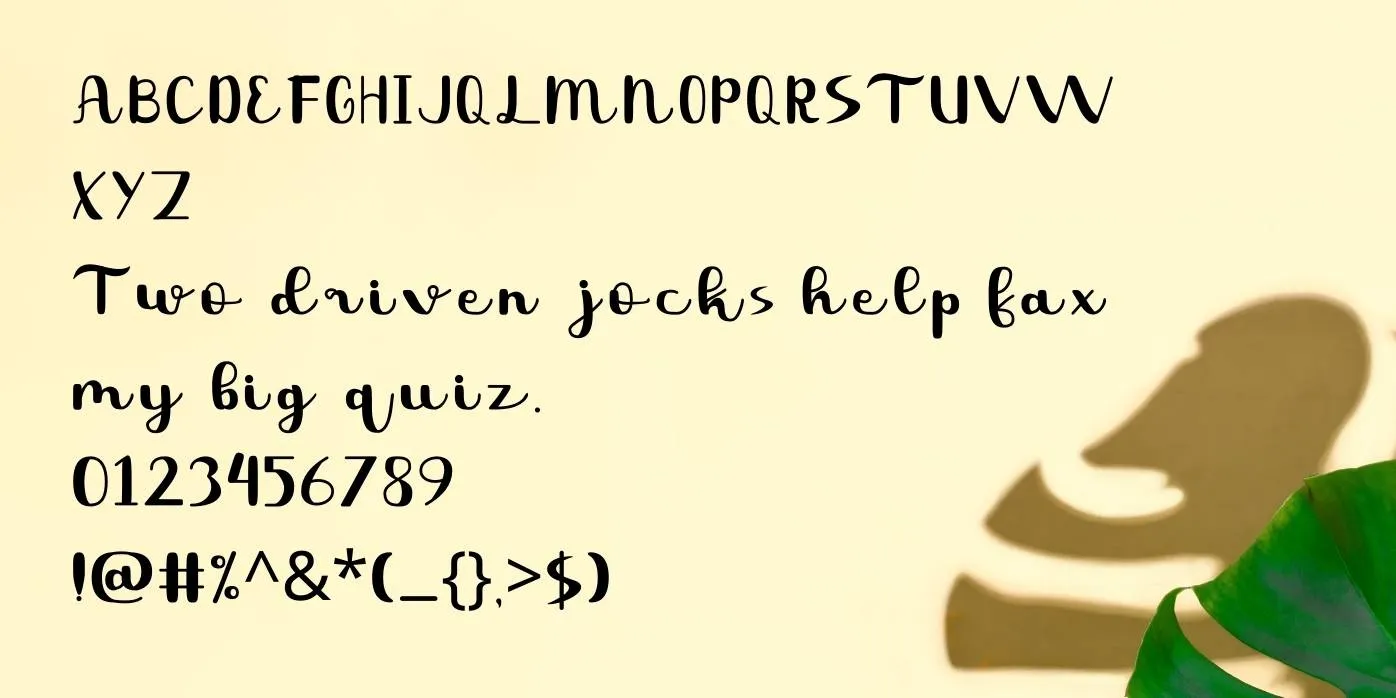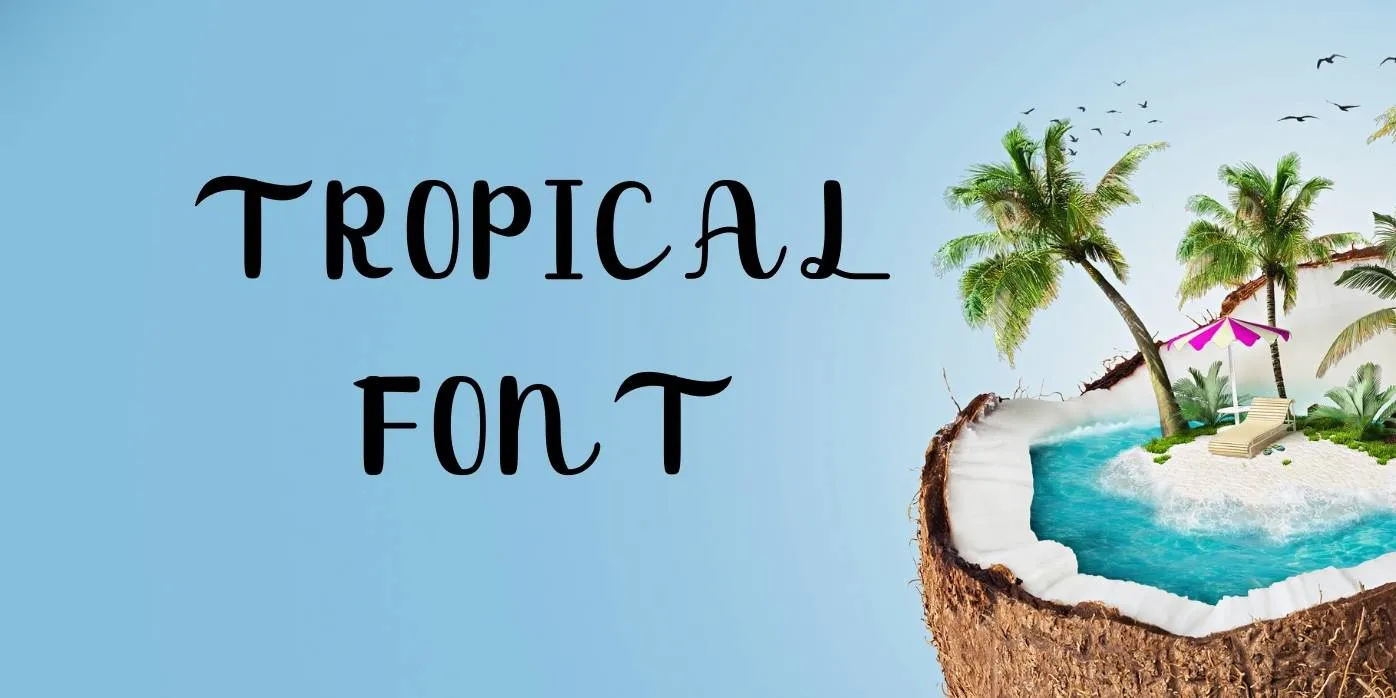
Tropical Font
Introducing the most stylish handwriting style typeface that is Tropical font. The font belongs to a Script font family and it is the crafting of Faris Graphic Art. He is a quality font artist and made too many best fonts also. One of the greatest features of this font is that it has OTF and TTF features.
This kind of typeface is very rare. The font family has Uppercase and Lowercase Letters, Numbers and Numerals, and mandatory symbols also. It has only Regular Style. The font’s characters seem Handwritten style with rounded tails as it’s written with a pen.